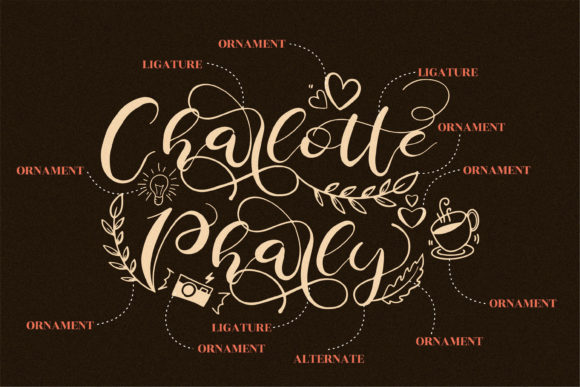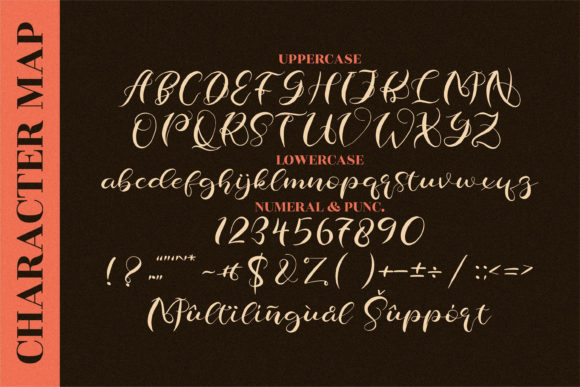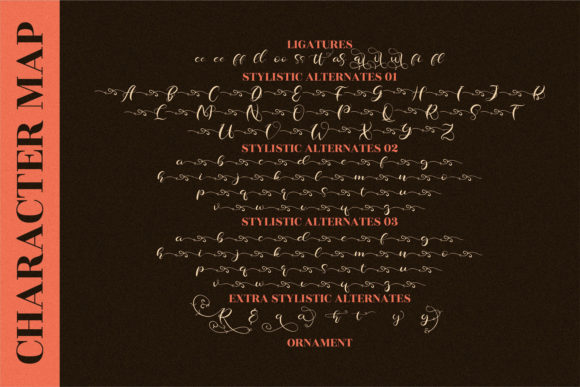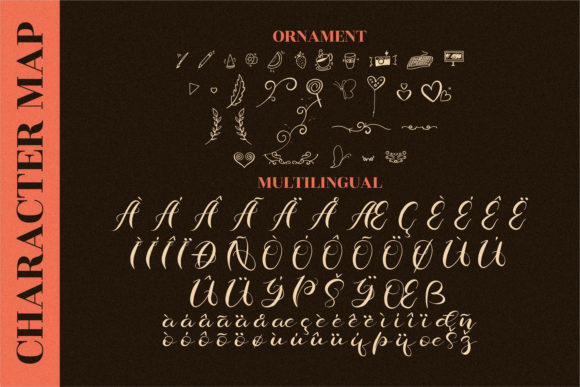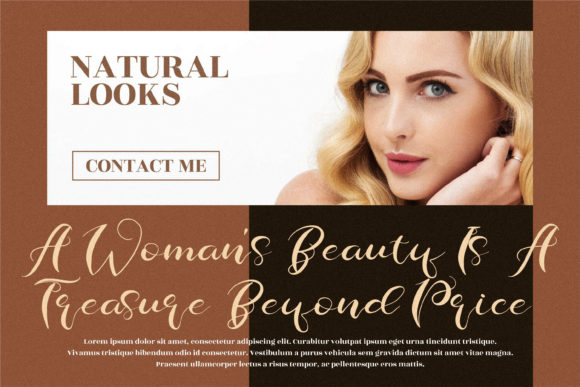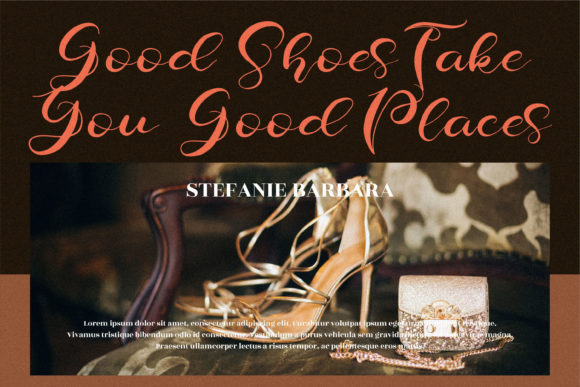
Introducing Charlotte Pharly Font: Elevate Your Designs with Elegance and Sophistication
Are you on the hunt for a font that exudes luxury, sophistication, and modernity? Look no further than the stunning Charlotte Pharly Font. This beautiful script font is perfect for designers and crafters seeking to add a touch of elegance to their projects. With its refined and classy look, Charlotte Pharly is an excellent choice for a wide range of applications, from logos and branding to invitations, stationery, wedding designs, and social media posts.
What Makes Charlotte Pharly Font So Special?
Charlotte Pharly Font boasts a unique blend of classic and modern elements, making it an incredibly versatile font. Its elegant and refined design ensures that your projects stand out from the crowd, while its modern twist keeps them feeling fresh and contemporary. Whether you’re working on a high-end branding campaign or a beautiful wedding invitation, this font is sure to impress.
Key Features of Charlotte Pharly Font
- PUA Encoded: Charlotte Pharly Font is PUA (Private Use Area) encoded, which means you can easily access all the glyphs and swashes. This feature makes it simple to customize your text and add unique flourishes to your designs.
- Wide Range of Applications: From logos and branding to invitations, stationery, wedding designs, and social media posts, Charlotte Pharly Font is perfect for a variety of projects.
- Elegant and Refined: This font’s classy and sophisticated design ensures that your projects exude luxury and modernity.
- Easy to Use: With its PUA encoding, you can effortlessly access all the glyphs and swashes, making it simple to create stunning designs.
Why Designers and Crafters Love Charlotte Pharly Font
Designers and crafters adore Charlotte Pharly Font for its versatility, elegance, and ease of use. This font allows them to create stunning designs that are sure to impress their clients or personal projects. Whether you’re a professional designer or a crafty DIY enthusiast, Charlotte Pharly Font is an excellent addition to your font library.
How to Use Charlotte Pharly Font in Your Designs
Tips and Tricks for Getting the Most Out of Charlotte Pharly Font
- Experiment with Different Sizes: Charlotte Pharly Font looks stunning in a range of sizes, from large headings to smaller body text.
- Play with Glyphs and Swashes: With its PUA encoding, you can easily access all the glyphs and swashes, allowing you to add unique flourishes to your designs.
- Pair it with Other Fonts: Charlotte Pharly Font pairs beautifully with other fonts, allowing you to create stunning font combinations.
Charlotte Pharly Font is a beautiful and refined script font that is perfect for designers and crafters seeking to add a touch of elegance and sophistication to their projects. With its PUA encoding, elegant design, and versatility, this font is sure to become a favorite in your font library. Whether you’re working on a high-end branding campaign or a beautiful wedding invitation, Charlotte Pharly Font is an excellent choice.